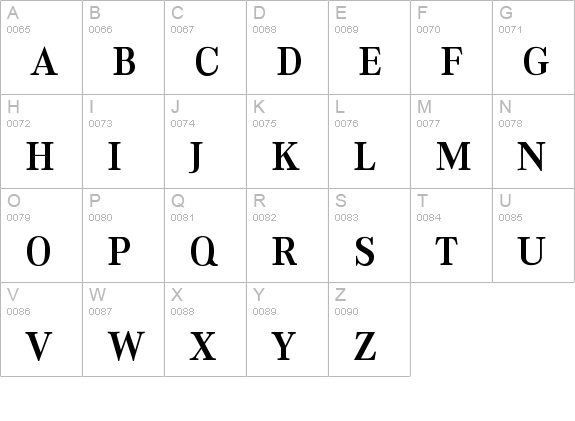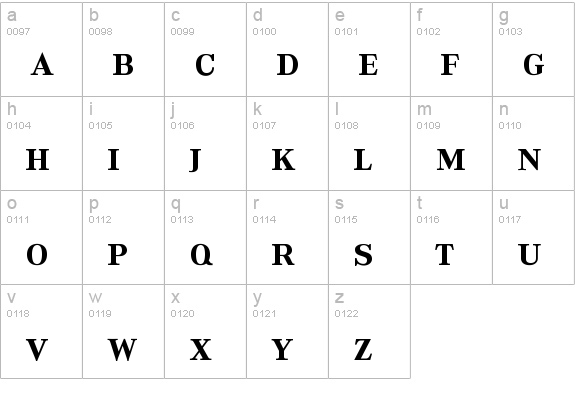
Corporate A BQ Expert Bold Font Details
Corporate A BQ Expert Bold is a strong, high-contrast variant in the Corporate typeface family \xE2\x80\x94 well suited to headlines, attention-grabbing titles, and strong calls-to-action.
Introducing Corporate A BQ Expert Bold font, a versatile and modern typeface that exudes sophistication and professionalism. This bold font is perfect for corporate branding, business presentations, and any design project that requires a strong and impactful look. With its clean lines and sharp edges, Corporate A BQ Expert Bold font commands attention and makes a bold statement. Whether used for headlines, logos, or marketing materials, this font is sure to leave a lasting impression on your audience. Best of all, Corporate A BQ Expert Bold font is available for free download at FontsMarket.com. So go ahead and elevate your designs with this sleek and stylish typeface today!